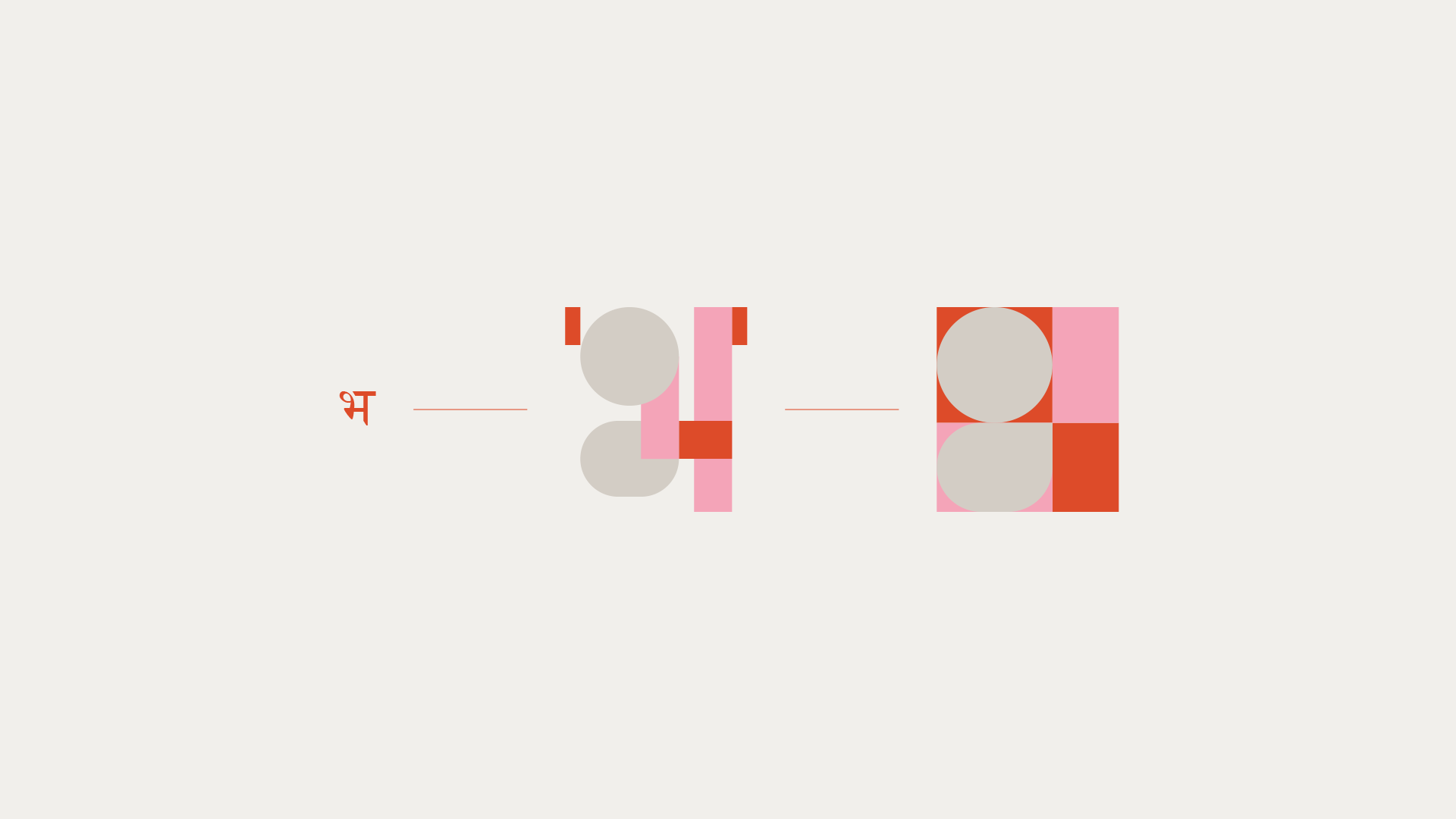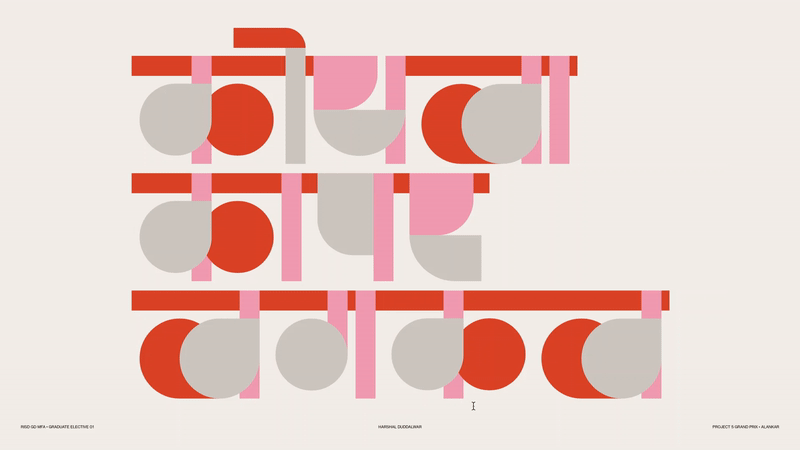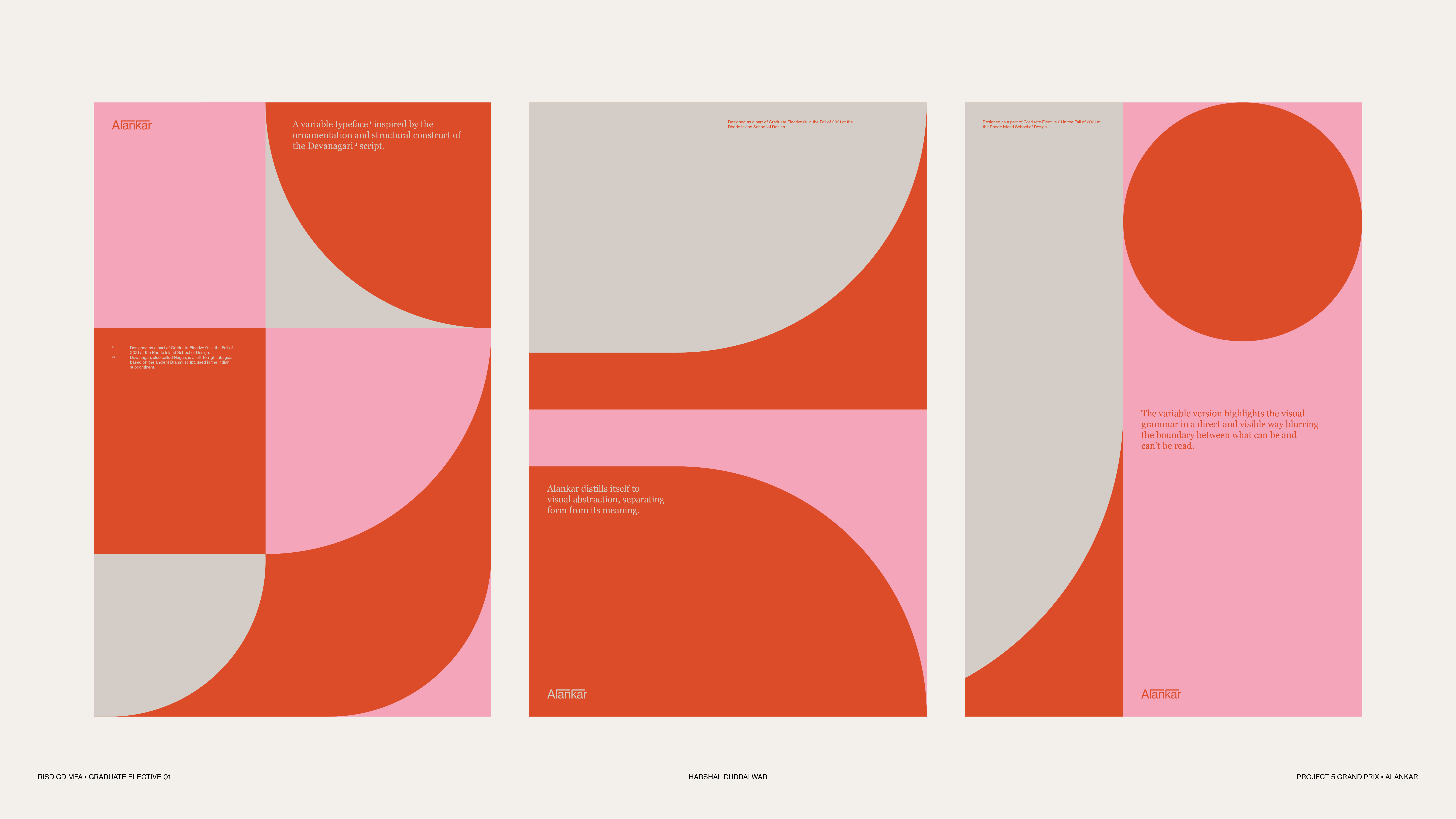
For the final project in GE1 (Grand Prix), Harshal created a colored variable Devanagari typeface ‘highlighting the structural construct and ornament of the script.’ Harshal’s process began by breaking the the forms into simpler components; in relation to how the glyph is written. These components were then used to create a drawing program which could result in two states, or masters, for each glyph. These two masters where then used to create a variable font file. Harshal then used a .py library, ColdType, to animate the forms to audio input.
“On the variability axis, the typeface distills itself to visual abstraction, separating form from its meaning and highlighting the visual grammar (the forms, shapes, and composition) of each letter in a direct and visible way. The intent is to experiment and blur the boundary between readability and illegibility.”